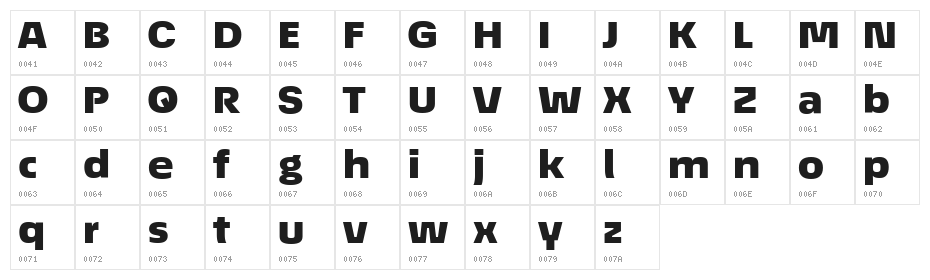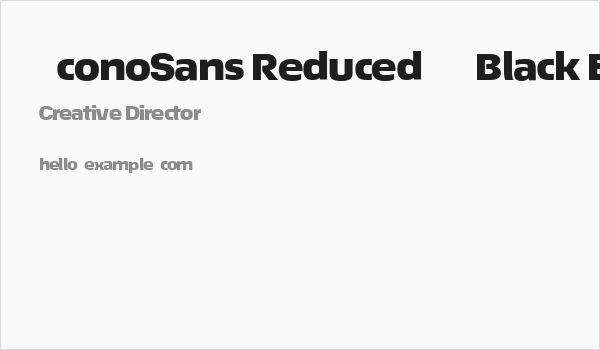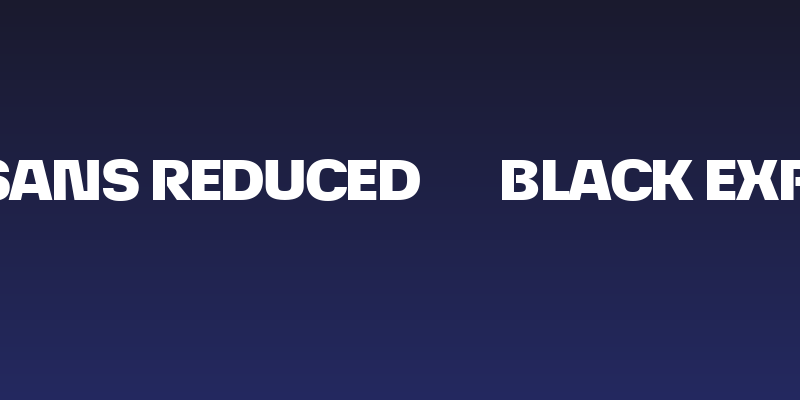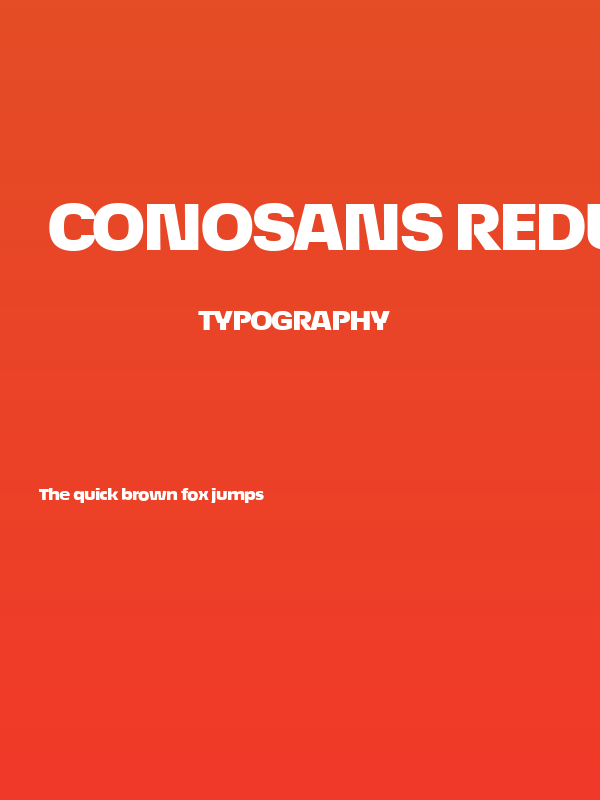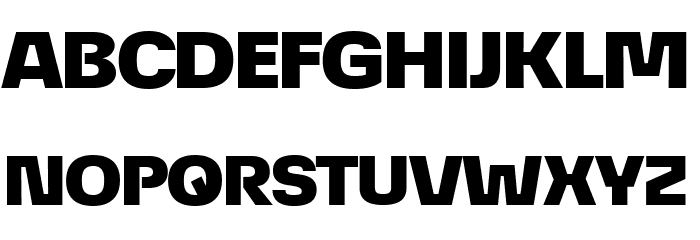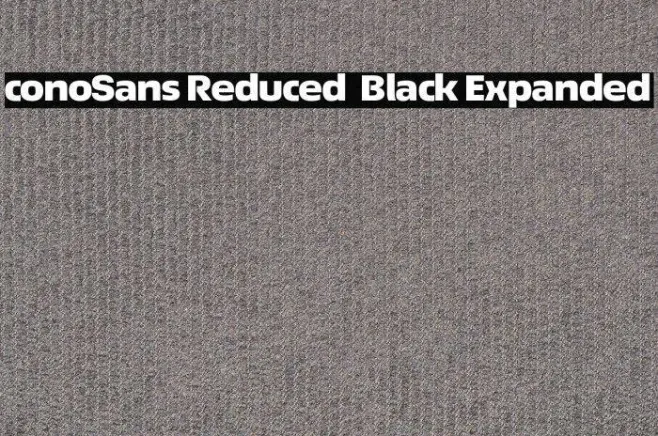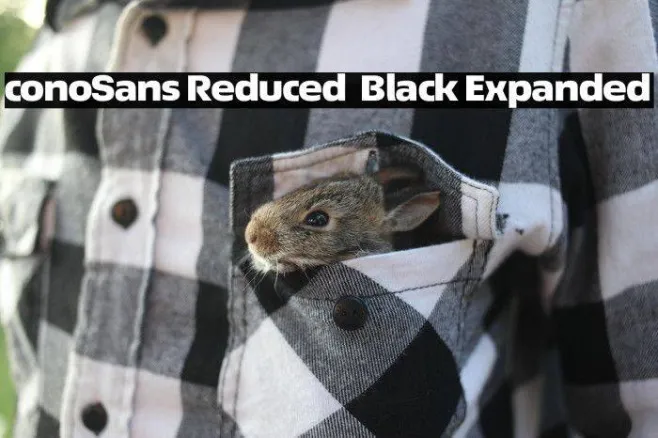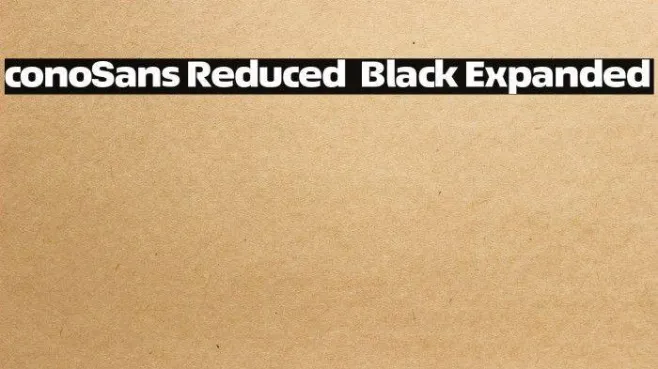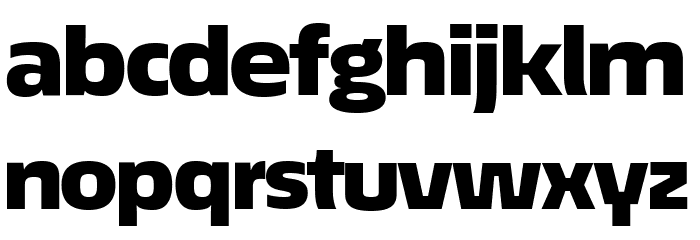
ÉconoSans Reduced 93 Black Expanded Font
ÉconoSans Reduced 93 Black Expanded Description
This font features a bold and commanding presence with its thick, uniform strokes and expanded width. The characters are designed with a modern aesthetic, showcasing a sans-serif style that emphasizes clarity and readability. The uppercase and lowercase letters maintain a consistent weight, providing a cohesive look across different text sizes. The font's expanded width allows for a more open and airy appearance, making it suitable for impactful headlines and titles. The character spacing is normal, ensuring that each letter is distinct while maintaining a harmonious flow. The overall style is modern and versatile, making it ideal for a variety of design projects.
| Proposed Projects | Ideal for branding, advertising, headlines, posters, and digital media where a strong visual impact is needed. |